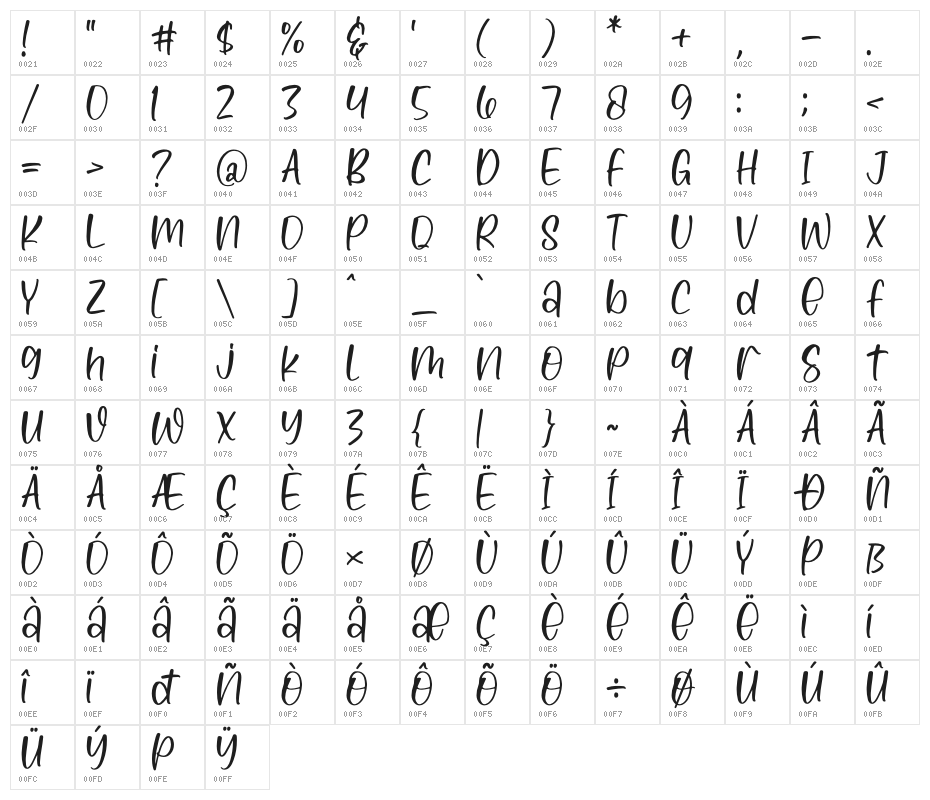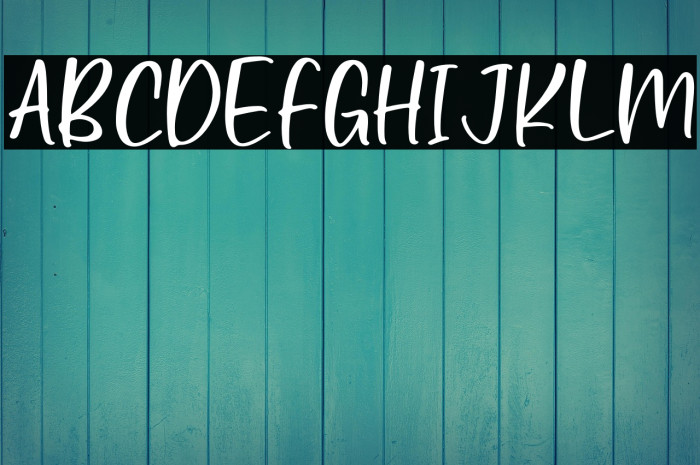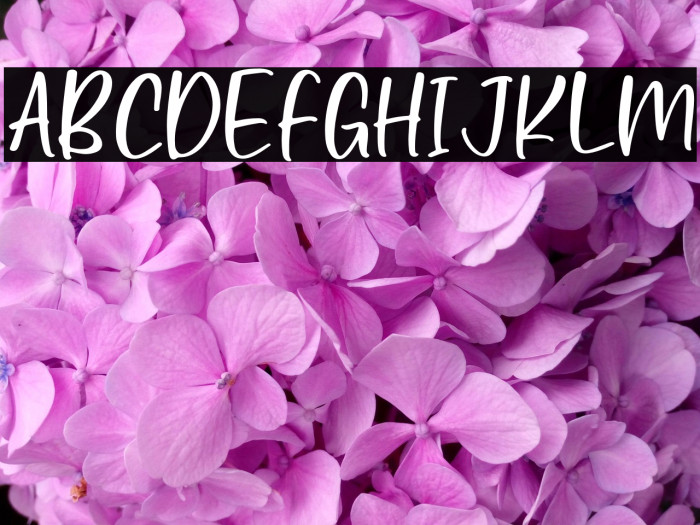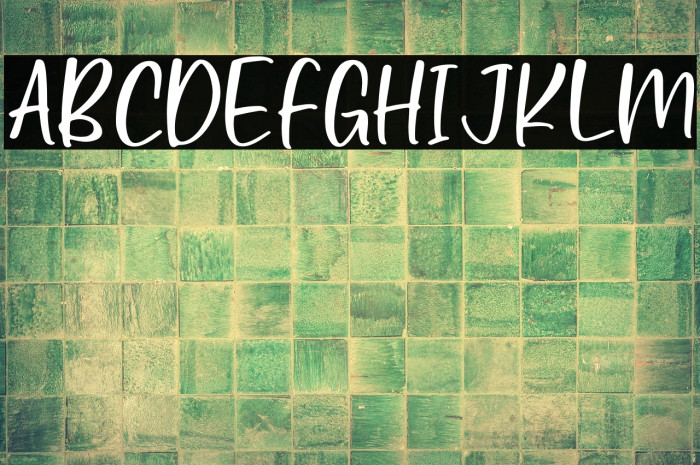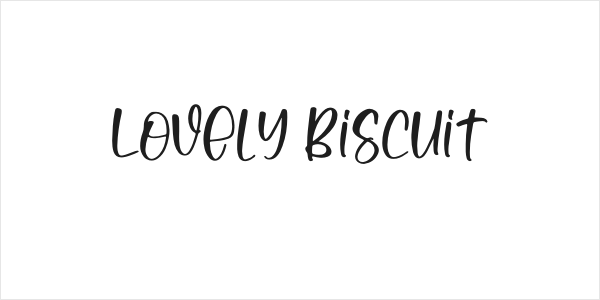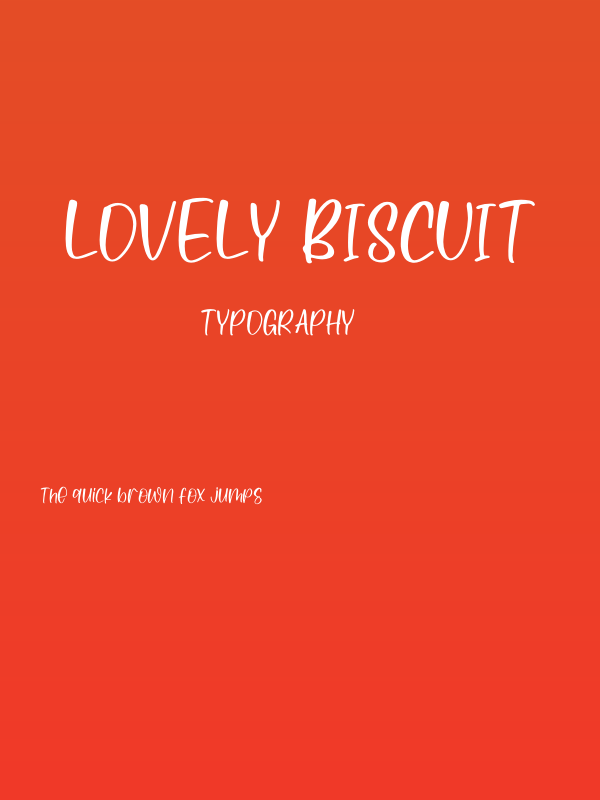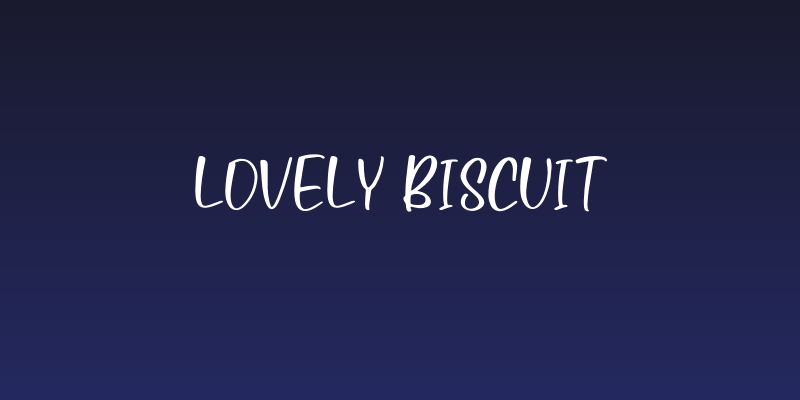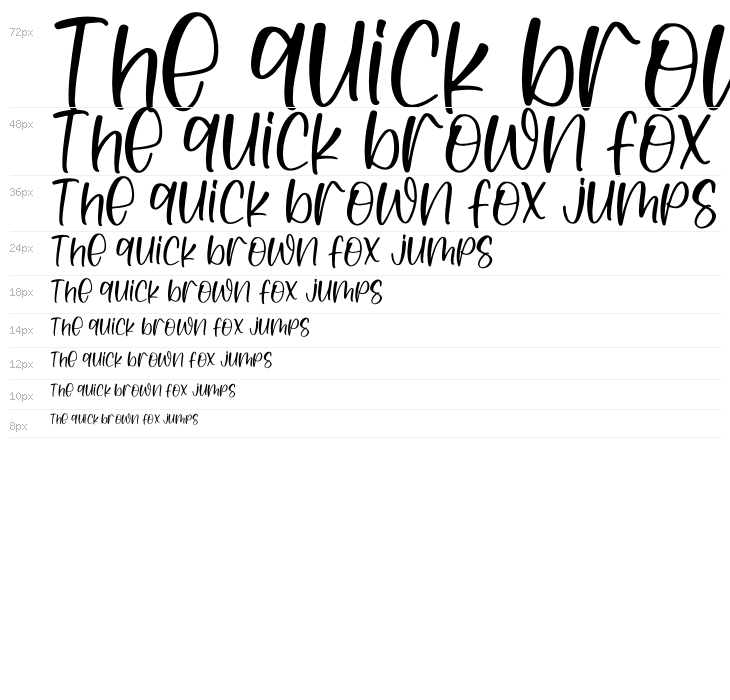
Lovely Biscuit Font
Lovely Biscuit Description
This font features a playful and energetic script style, characterized by its fluid and dynamic strokes. The letters are slightly slanted, giving a sense of motion and liveliness. The uppercase and lowercase characters maintain a consistent flow, with rounded edges and a hand-drawn appearance. The numerals and special characters complement the alphabet with similar stylistic elements, ensuring a cohesive look. The overall design is informal yet stylish, making it suitable for creative and casual applications.
| Proposed Projects | Ideal for greeting cards, invitations, branding projects, and social media graphics. |